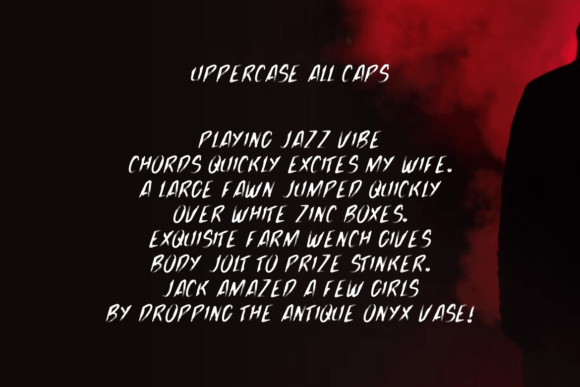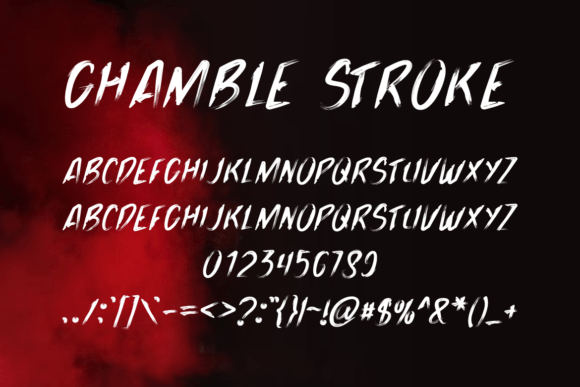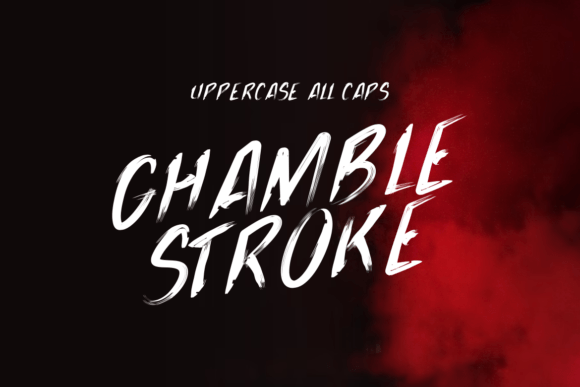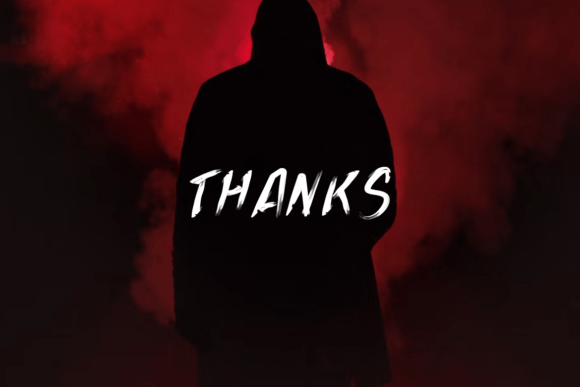
Unleashing the Spooky Charm of Ghamble Stroke Font
As a designer, I’ve had my fair share of late nights scrolling through font libraries, searching for that perfect typeface to bring a client’s vision to life. One project that still haunts me (pun intended) was a Halloween-themed invitation suite. My client wanted something that would send shivers down the spines of their guests, but I was struggling to find a font that was both eerie and elegant. That’s when I stumbled upon the Ghamble Stroke Font, and it was love at first sight! 💀
A Personal Connection to Ghamble Stroke Font
I remember the thrill of working on that Halloween project. The client had a clear vision of what they wanted: a spooky, yet sophisticated invitation that would set the tone for their Halloween party. I had tried several fonts, but none seemed to capture the right atmosphere. That was until I discovered Ghamble Stroke Font. Its unique blend of horror and elegance was exactly what I needed to bring the project to life.
An Honest Review of Ghamble Stroke Font
So, what makes Ghamble Stroke Font so special? Let’s dive into the good stuff! 🤩
- ✨ Unique Horror Ambiance: The font’s distressed brushstroke effect creates a hauntingly beautiful atmosphere, perfect for Halloween-themed designs or any project that requires a touch of darkness.
- ✅ Elegant and Readable: Despite its spooky vibe, Ghamble Stroke Font remains surprisingly readable, even at smaller sizes.
- 💡 Versatile: This font can be used in a variety of contexts, from invitations and postcards to posters and headings.
Of course, no font is perfect, and Ghamble Stroke Font has a few quirks to consider:
- 🤔 Limited Use Cases: While the font is versatile, its horror theme might not be suitable for more formal or lighthearted projects.
- ⚠️ Glyph Limitations: Some users have reported that the font’s glyph set could be more extensive, particularly for non-English characters.
The Backstory Behind Ghamble Stroke Font
While the true origins of Ghamble Stroke Font remain shrouded in mystery, it’s said to have been inspired by the works of a reclusive, Victorian-era type designer with a fascination for the dark arts. This designer’s love for horror and the supernatural led to the creation of a font that would evoke the eerie atmosphere of a haunted mansion.
| Font Name | Ghamble Stroke Font |